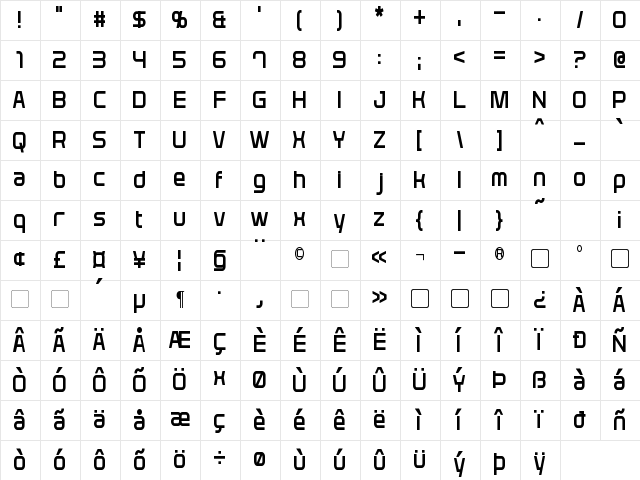
Plavsky Condensed Regular
Foundry: Pixel Sagas
Designer: Neale Davidson
Design Context for Plavsky Condensed
Plavsky Condensed is a composed and adaptable typeface that performs quietly and consistently across a wide range of design contexts. Its narrow stance lets it pack a punch even in space-constrained designs.